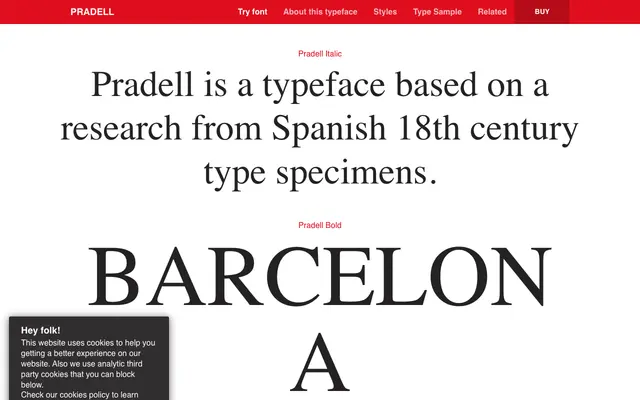
Pradell
Typerepublic · Andreu Balius · 1999
A transitional serif rooted in research into 18th-century Spanish type specimens, freely inspired by the punches of Catalan punchcutter Eudald Pradell (1721–1788).
Designed by Andreu Balius between 1999 and 2003, the family draws on archival study of Spanish type specimens to revive the spirit of Eudald Pradell's punchcutting work. Six styles run from Roman to Bold Italic, with an extensive OpenType feature set covering small capitals, historical forms, oldstyle figures and more, making it well suited to literary and long-form editorial composition. The design was recognised with awards from ATypI, TDC and AEPD, underlining its standing as a serious contribution to book typography.
Freely inspired by 18th-century Spanish type specimens and the punches of Catalan punchcutter Eudald Pradell, placing it firmly in the transitional serif tradition with historical forms and balanced proportions characteristic of the period.